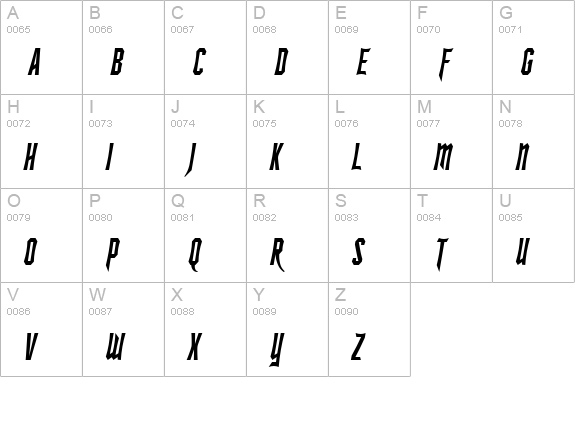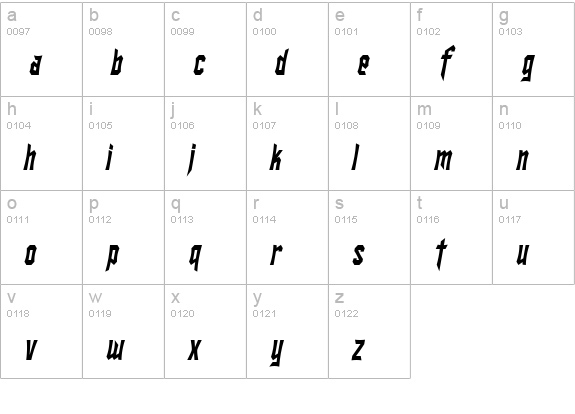
SF Ironsides Condensed Italic Font Details
SF Ironsides Condensed Italic is a distinctive, condensed-width, italic variant in the SF typeface family \xE2\x80\x94 well suited to design and typography projects.
SF Ironsides Condensed Italic is a stunning font that captures the essence of modernity and sophistication. Its sleek and slender design exudes a sense of elegance and professionalism, making it the perfect choice for a wide range of creative projects. This condensed italic variant of the SF Ironsides font family offers a unique blend of style and functionality. Its slanted letterforms add a touch of dynamism, making it ideal for conveying a sense of motion and energy in your designs. Whether you're creating eye-catching logos, attention-grabbing headlines, or captivating body text, SF Ironsides Condensed Italic is sure to make a lasting impression. One of the best things about SF Ironsides Condensed Italic is that it is freely available to download at FontsMarket.com. This means that you can easily access this exceptional font and incorporate it seamlessly into your projects without any cost. With its extensive character set and incredible versatility, this font is a valuable asset for any designer or typographer. The legibility and readability of SF Ironsides Condensed Italic are second to none. Its carefully crafted letterforms ensure that your message is communicated effectively, even in small sizes or challenging layouts. The condensed nature of this font allows you to fit more text into limited spaces, making it particularly useful for projects with tight design constraints. SF Ironsides Condensed Italic is a typeface that effortlessly combines professionalism with a touch of creativity. Its contemporary design elements and stylish curves make it a perfect choice for both print and digital media. Whether you're working on a branding project, a web design, or a magazine layout, this font will elevate your work to new heights. So, if you're looking for a versatile and visually striking font that is also free to download, look no further than SF Ironsides Condensed Italic. Visit FontsMarket.com today to access this exceptional font and bring a touch of elegance and sophistication to your next design endeavor.